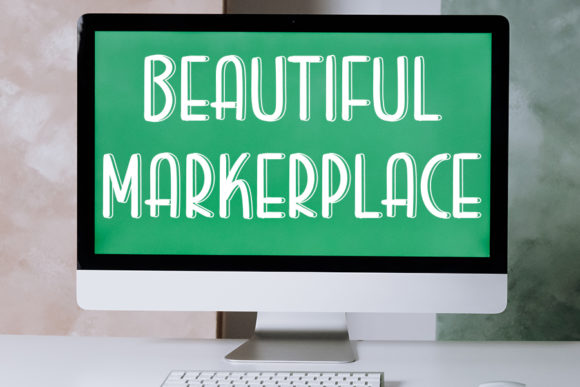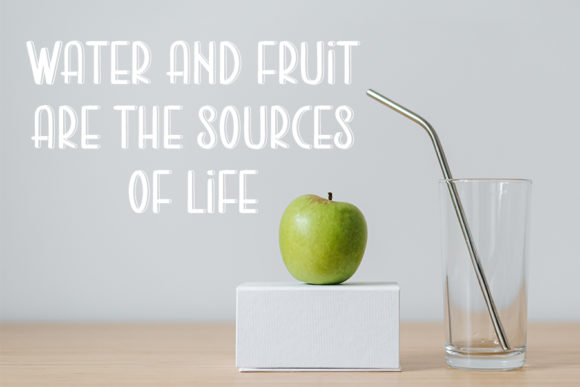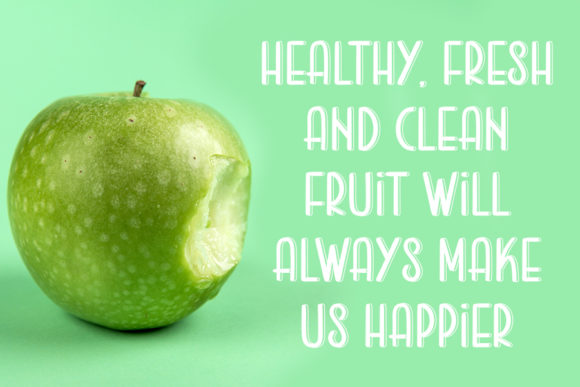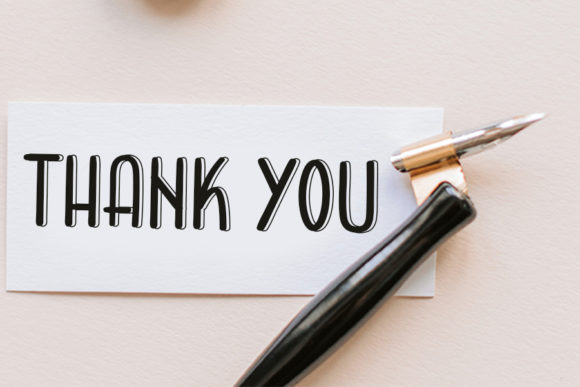
Introducing Green Apple Font: The Perfect Choice for Your Designs
Are you a designer or crafter looking for a font that can add a touch of warmth and friendliness to your projects? Look no further than the Green Apple Font. This simple and elegant handwritten font is perfect for a wide range of design applications, from branding and packaging to invitations and crafts.
What is Green Apple Font?
Green Apple Font is a carefully crafted handwritten font that exudes a sense of casual charm and attractiveness. Its simple yet elegant design makes it an ideal choice for designers and crafters who want to add a personal touch to their work. The font’s friendly and approachable style is sure to resonate with your audience, making it perfect for projects that require a human touch.
Key Features of Green Apple Font
• Simple and Friendly Design: Green Apple Font boasts a clean and uncomplicated design that is easy to read and understand.
• Casual and Attractive Style: The font’s casual style makes it perfect for designs that require a relaxed and approachable feel.
• Handwritten Elegance: The font’s handwritten design adds a touch of elegance and sophistication to any project.
• Versatile and Adaptable: Green Apple Font can be used for a wide range of design applications, from digital projects to print materials.
Why Choose Green Apple Font?
There are many reasons why Green Apple Font is an excellent choice for designers and crafters. Here are just a few:
• Easy to Read: The font’s simple and clean design makes it easy to read, even at small sizes.
• Highly Versatile: Green Apple Font can be used for a wide range of projects, from branding and advertising to crafting and DIY projects.
• Unique and Creative: The font’s handwritten design adds a touch of creativity and uniqueness to any project.
• Time-Saving: With Green Apple Font, you can create professional-looking designs in no time, saving you time and effort.
Use Cases for Green Apple Font
Green Apple Font is perfect for a wide range of design applications, including:
• Branding and Packaging: Use Green Apple Font to create eye-catching logos, labels, and packaging that stands out.
• Invitations and Stationery: Add a personal touch to your invitations, greeting cards, and stationery with Green Apple Font.
• Crafts and DIY Projects: Use Green Apple Font to add a creative and handmade touch to your crafts and DIY projects.
• Digital Projects: Green Apple Font is perfect for digital projects, such as social media graphics, blog posts, and website designs.
Tips for Using Green Apple Font
Here are some tips for getting the most out of Green Apple Font:
• Experiment with Sizes and Colors: Try out different font sizes and colors to find the perfect combination for your project.
• Pair with Other Fonts: Green Apple Font pairs well with other fonts, so don’t be afraid to experiment with different font combinations.
• Use for Headings and Body Text: Use Green Apple Font for both headings and body text to create a cohesive and visually appealing design.
In conclusion, Green Apple Font is a simple and friendly handwritten font that is perfect for designers and crafters looking to add a touch of warmth and elegance to their projects. With its casual and attractive style, versatility, and ease of use, Green Apple Font is an excellent choice for a wide range of design applications. So why wait? Try Green Apple Font today and take your designs to the next level!